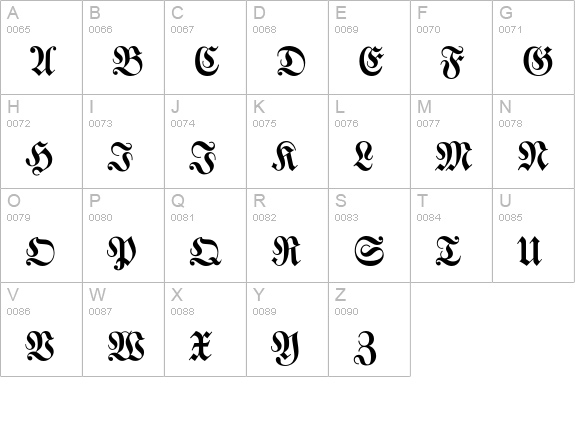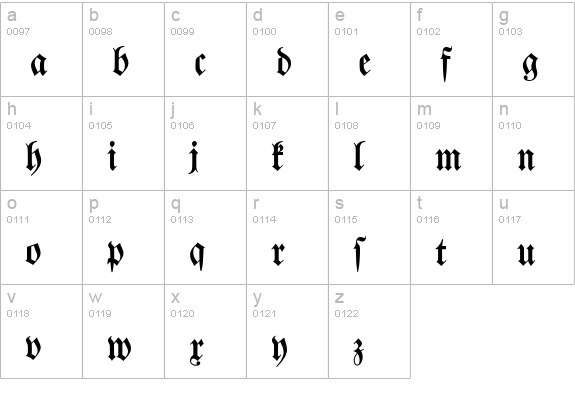
Walbaum-Fraktur Font Details
Walbaum-Fraktur is a stunning font that seamlessly combines the elegance of the Walbaum typeface with the captivating charm of Fraktur script. This unique fusion creates a visually striking font that is bound to grab attention and make a lasting impression. With its intricate details and carefully crafted letterforms, Walbaum-Fraktur exudes a timeless beauty that is perfect for a variety of design projects. Whether you're creating invitations for a formal event, designing a vintage-inspired logo, or adding a touch of sophistication to your brand, this font will elevate your work to new heights. What makes Walbaum-Fraktur even more remarkable is that it is freely available to download at FontsMarket.com. This means that you can easily access this exceptional font without any hassle or cost. Whether you're a professional designer, a student, or simply someone who appreciates high-quality typography, having access to such a remarkable font for free is truly a gift. The versatility of Walbaum-Fraktur is also worth mentioning. It can effortlessly adapt to different styles and contexts, making it suitable for both traditional and contemporary designs. Its clean lines, delicate curves, and distinctive serifs make every character a work of art, ensuring that your text stands out and commands attention. Walbaum-Fraktur is not just a font; it's an embodiment of elegance, sophistication, and artistic excellence. Its rich historical roots combined with its modern appeal make it a must-have for anyone who wants to add a touch of class and uniqueness to their designs. Download Walbaum-Fraktur today from FontsMarket.com and let this extraordinary font inspire your creativity. Whether you're designing for print or digital media, this font will undoubtedly bring your projects to life, leaving a lasting impression on anyone who encounters your work. Don't miss out on the opportunity to freely access this exceptional font and elevate your design game to new heights.